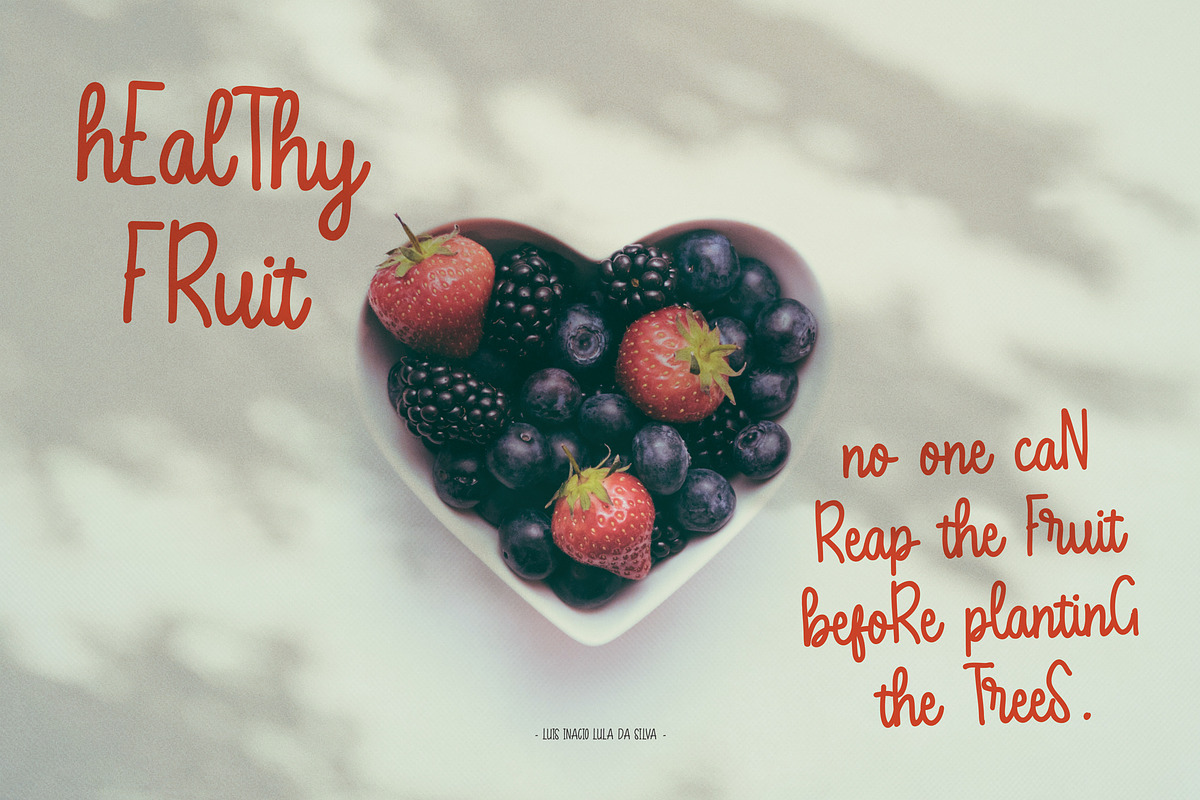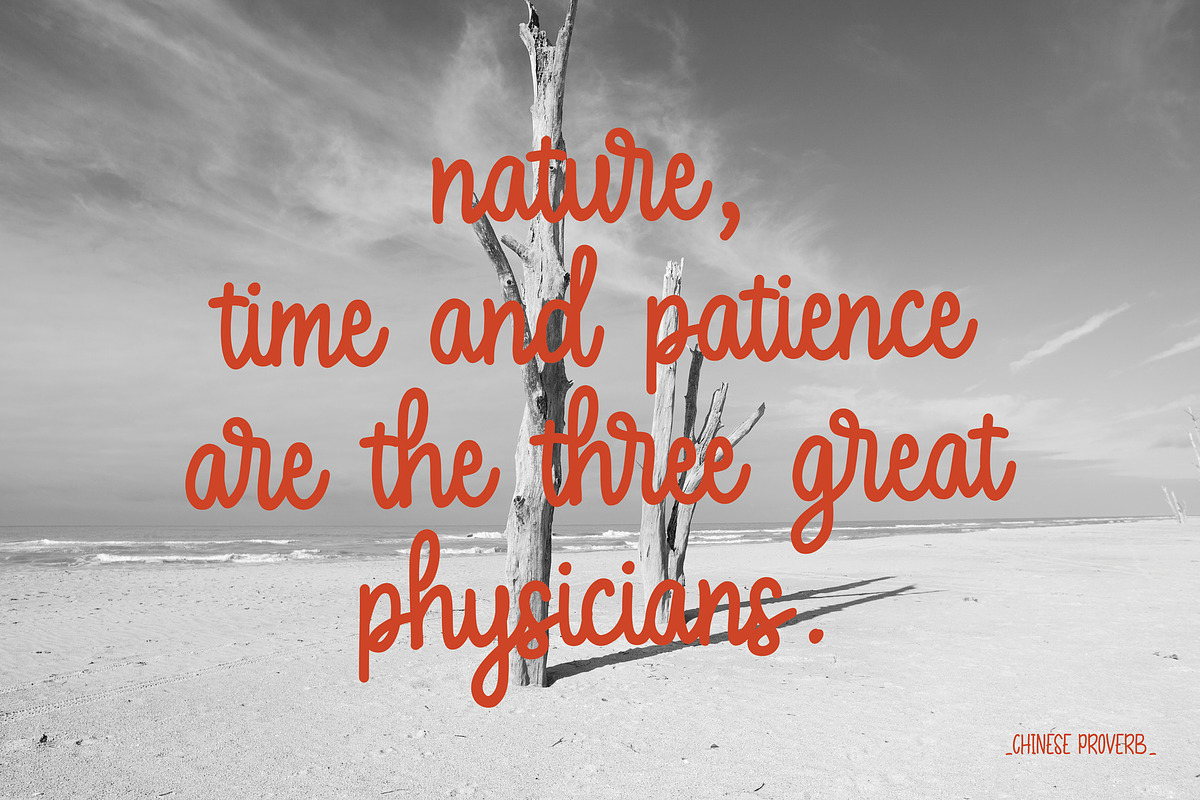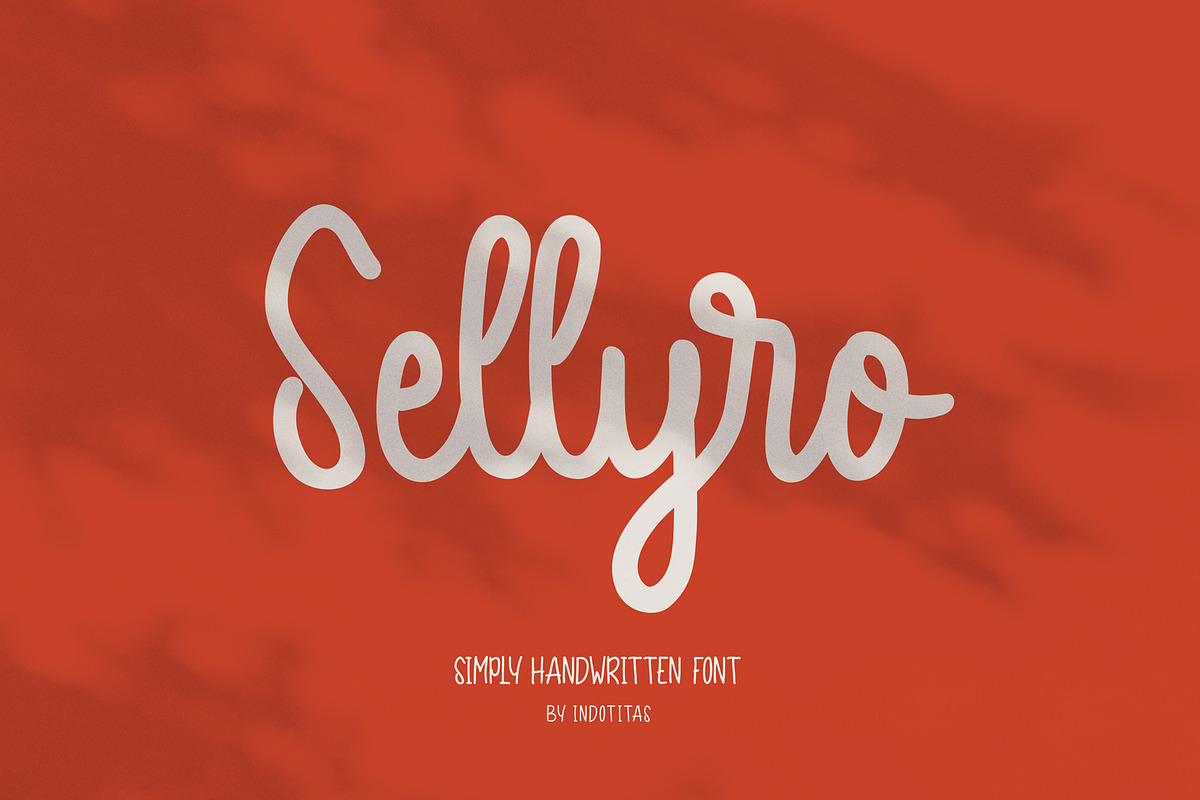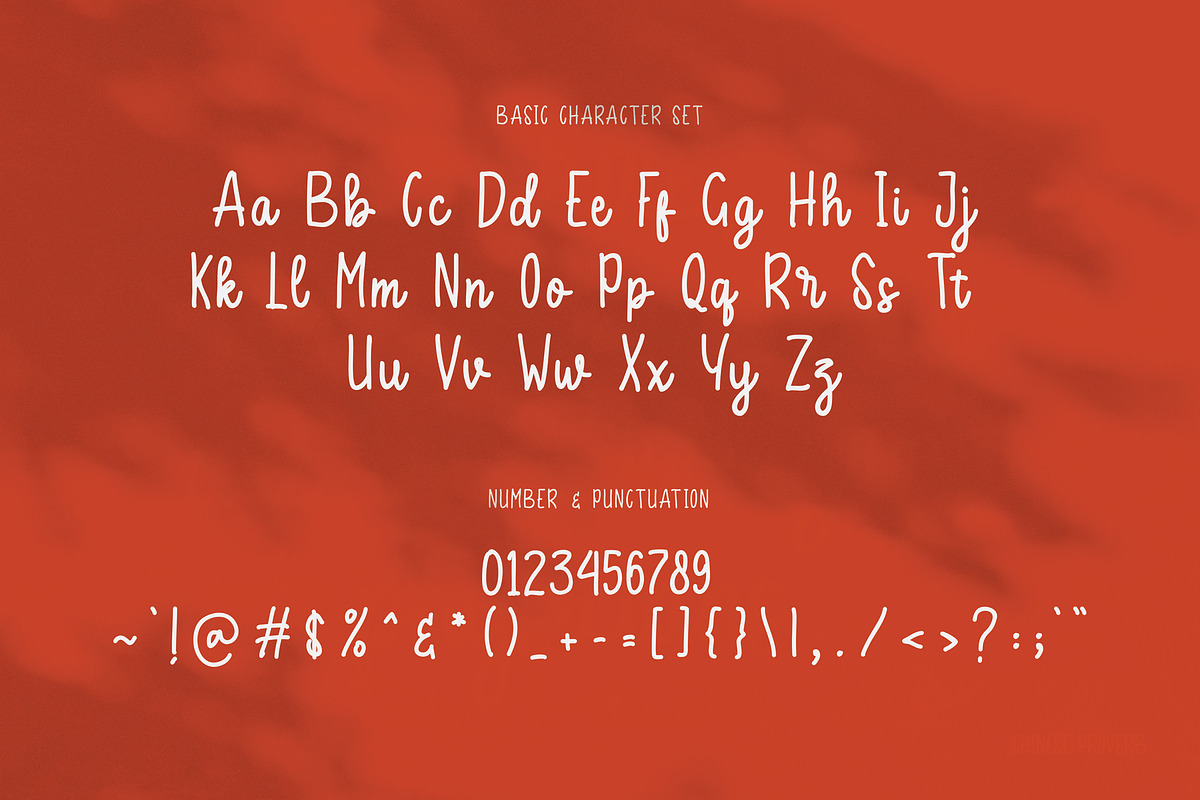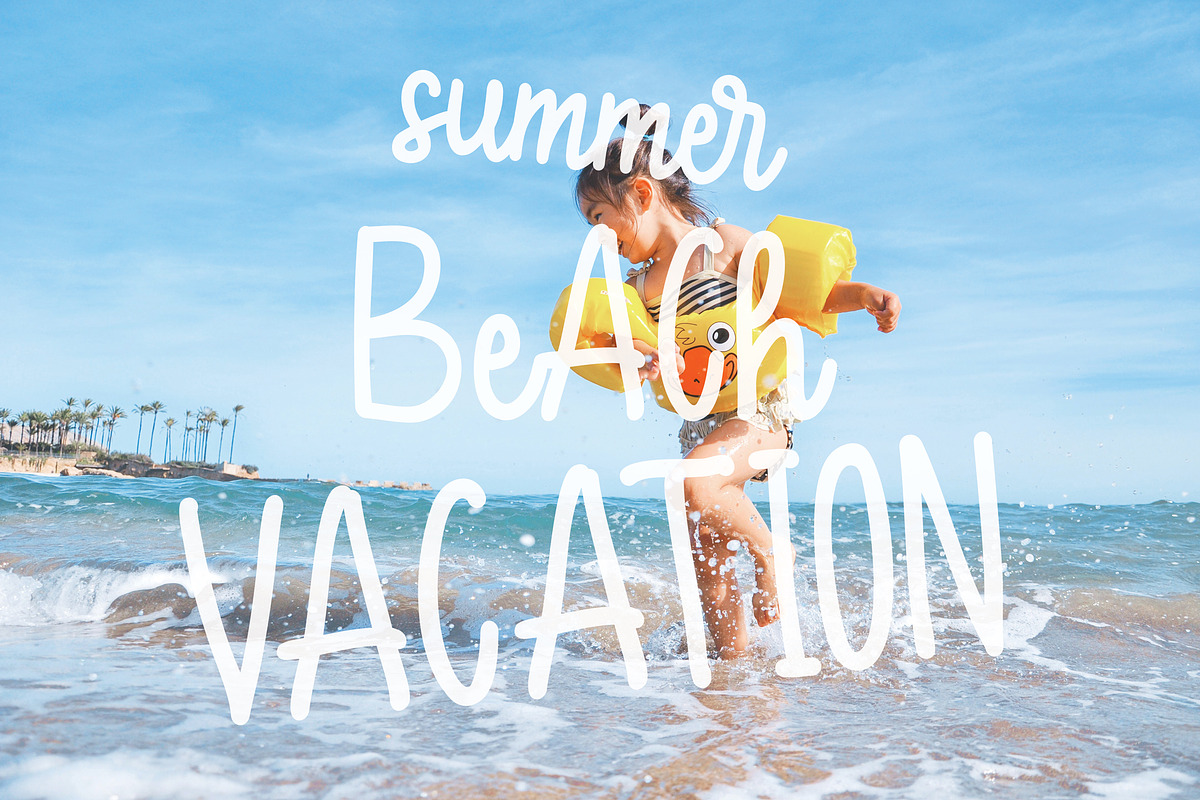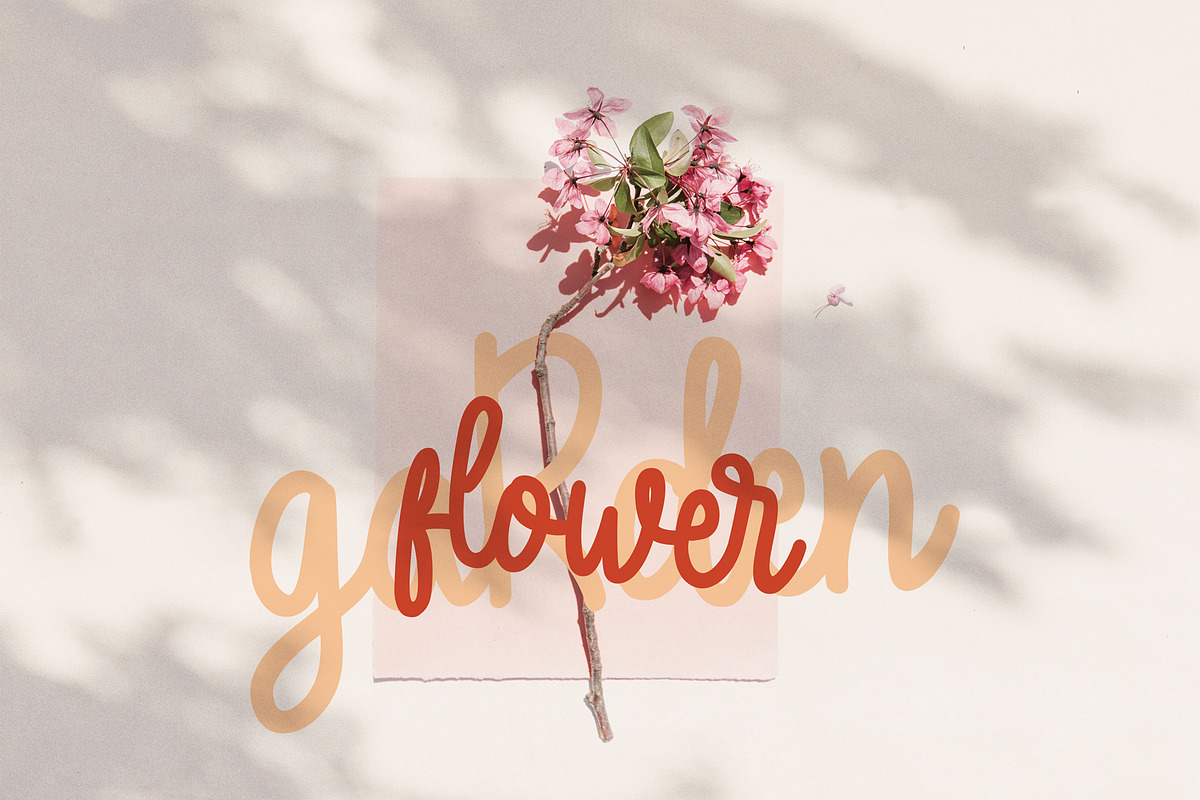
Sellyro
Sellyro created with simply handwritten characters style. This simply handwritten font was PUA encoded. This font comes with stylistic Uppercase and Lowercase character set. Sellyro works perfectly for logos, display, product branding, wedding invitation card, stationary, packaging, clothing, flyer, apparel, magazines, brochures, lable, posters, badges, etc.